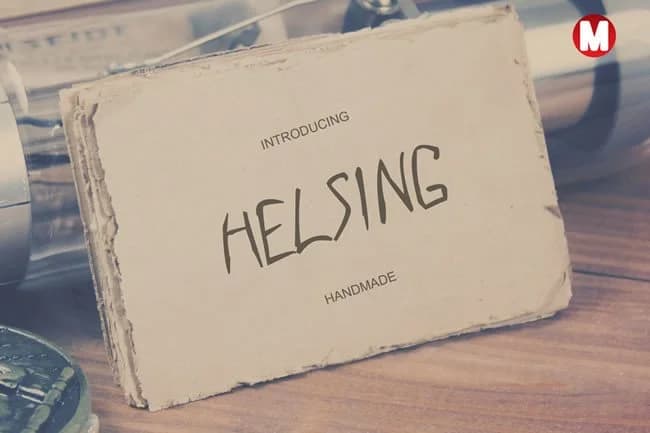
About Helsing Font
Helsing Font by Only The Originals is an elegantly flowing script that marries handwritten charm with refined sophistication. The typeface showcases smooth, expressive letterforms that capture the organic quality of traditional pen work while maintaining the precision needed for modern design applications. Its natural curves and fluid connections create an authentic aesthetic that resonates with audiences seeking genuine, personal design.
This versatile script excels across multiple creative disciplines. Wedding invitation suites benefit tremendously from its romantic yet legible character, allowing couples to convey intimacy and style in equal measure. Greeting card designs gain immediate warmth and personality from its natural curves, transforming simple messages into memorable moments. The font is equally compelling for custom vinyl lettering projects, where its flowing letterforms cut cleanly and maintain their grace at any size. Social media graphics and e-commerce product packaging also showcase this typeface's ability to convey both professionalism and artisanal appeal, helping brands stand out in crowded digital spaces.
Helsing Font is a script font that shines as a display or heading face. Pair it with a clean sans-serif or serif font for body text β the contrast creates a clear hierarchy while the two styles stay balanced and easy to read.